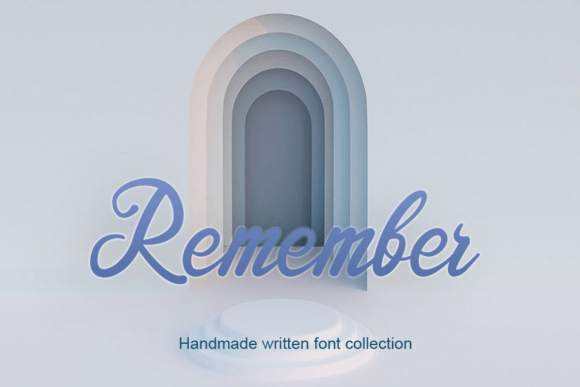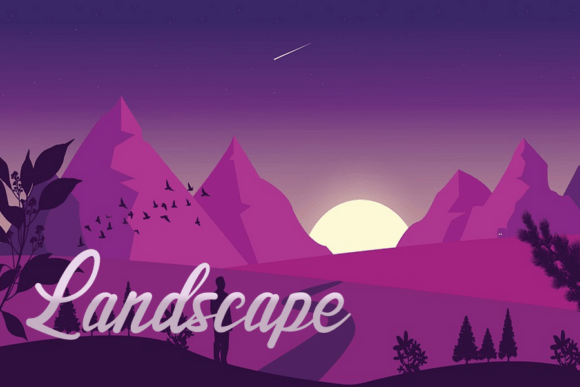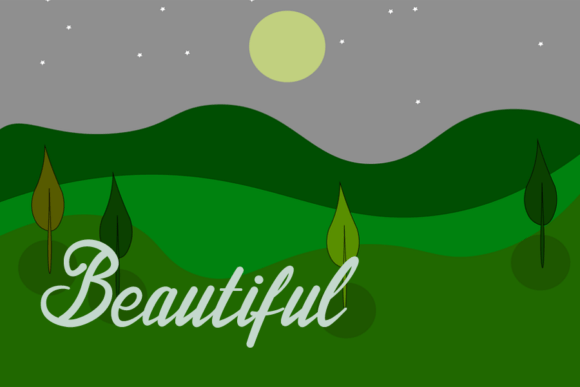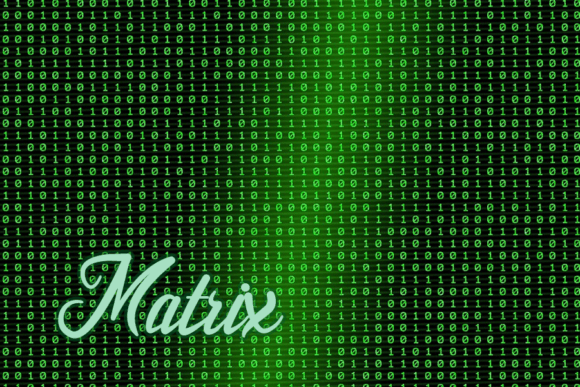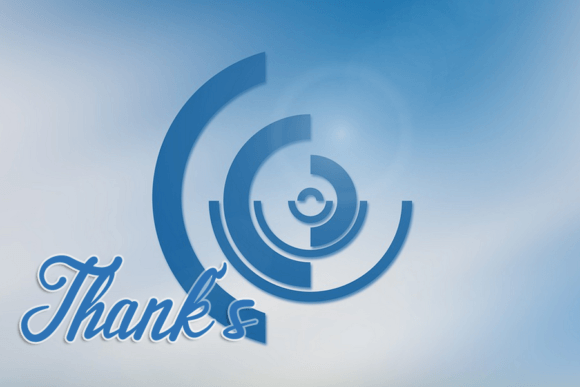
Remember Font
About Remember Font
“Remember” is a trendy handwritten font that captures a contemporary atmosphere while drawing inspiration from timeless classic calligraphy. Its impeccable form and stylish design make it a versatile and elegant choice for a variety of design projects. This font has the ability to elevate the visual appeal of your creations, adding a touch of sophistication and class.
The contemporary atmosphere of “Remember” lends itself well to modern design trends, making it a trendy and relevant choice for a wide range of applications. Its impeccable form ensures that each letter is crafted with precision, contributing to a polished and professional appearance.
The font’s inspiration from classic calligraphy brings a sense of timelessness, blending traditional elegance with a modern twist. This fusion of classic and contemporary elements makes “Remember” suitable for diverse design needs, allowing it to adapt seamlessly to different styles and themes.
Whether you’re working on product packaging, branding projects, or any other creative endeavor, “Remember” offers flexibility in meeting various design requirements. Its handwritten style adds a personal and authentic touch to your projects, creating a connection between your design and the audience.
The font’s ability to convey elegance and class makes it an excellent choice for a range of products, including invitations, labels, logos, business cards, and more. Its adaptability allows it to express different moods, from formal to trendy, making it a go-to option for designers seeking versatility.
In summary, “Remember” is more than just a font; it’s a design tool that brings together contemporary flair and timeless elegance. Whether used for print or digital designs, this font has the potential to enhance the overall aesthetic of your projects, making them stand out with a touch of sophistication and class.